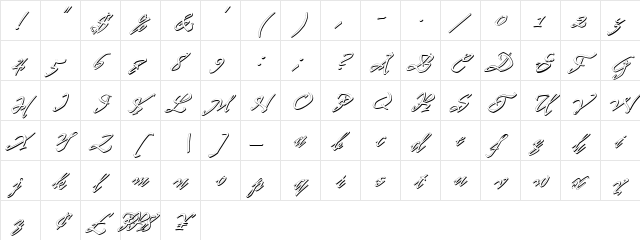
PR8 Shadow Cat Regular
Design Context for PR8 Shadow Cat Typeface
PR8 Shadow Cat is built around its visual character rather than neutral utility — its distinctive forms are designed to make an impression at display sizes.
Font Pairing: Pair with a clean neutral sans-serif for body copy to let PR8 Shadow Cat's character lead without overwhelming the composition.
Pro Tip: Treat PR8 Shadow Cat as the centrepiece of your typographic hierarchy. One strong heading set in a decorative face can carry an entire layout.